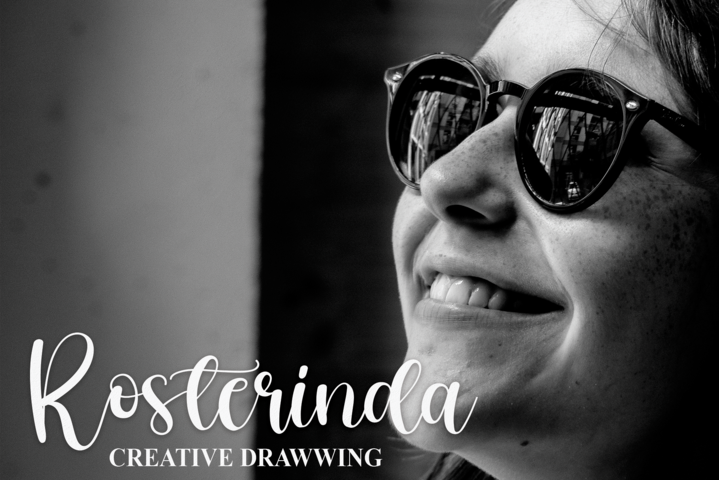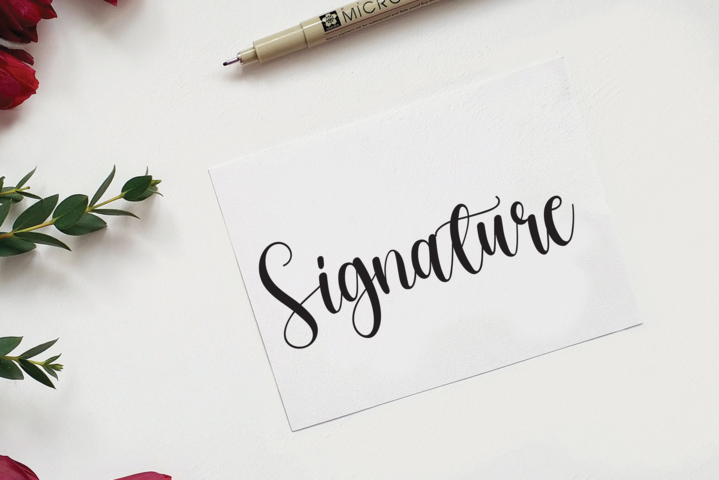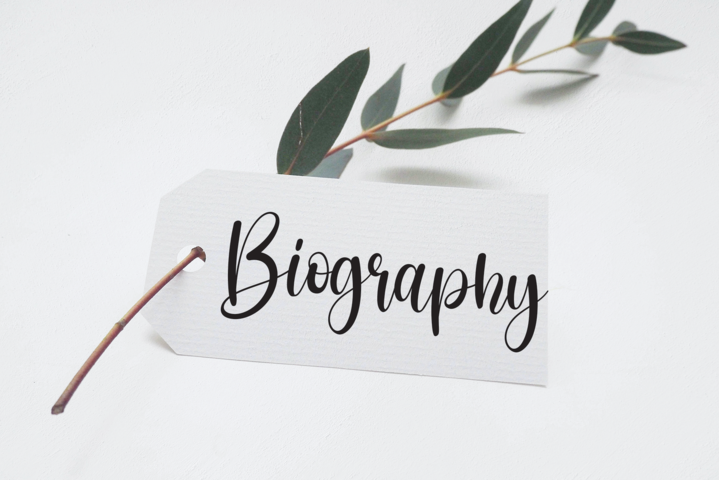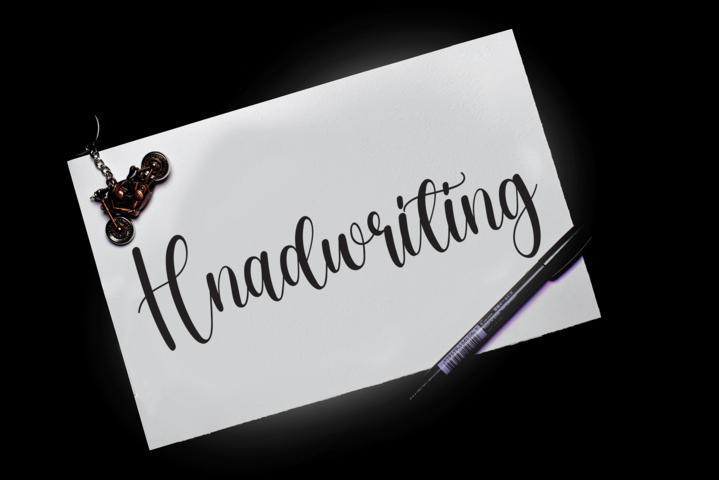
Calligraphy Typeface
Calligraphy Script Typeface
This is a delicate and elegant handwritten font. Its distinct and well balanced letters make this font a masterpiece. Fall in love with its incredibly versatile style and use it to create spectacular designs!
special creative products for you, our products will give you an extraordinary experience. The latest style letters are perfect for wall displays, wedding invitations, social media post logos, advertisements, product packaging, product designs, labels, photography, watermarks, invitations, stationery, and any project that requires taste handwriting.